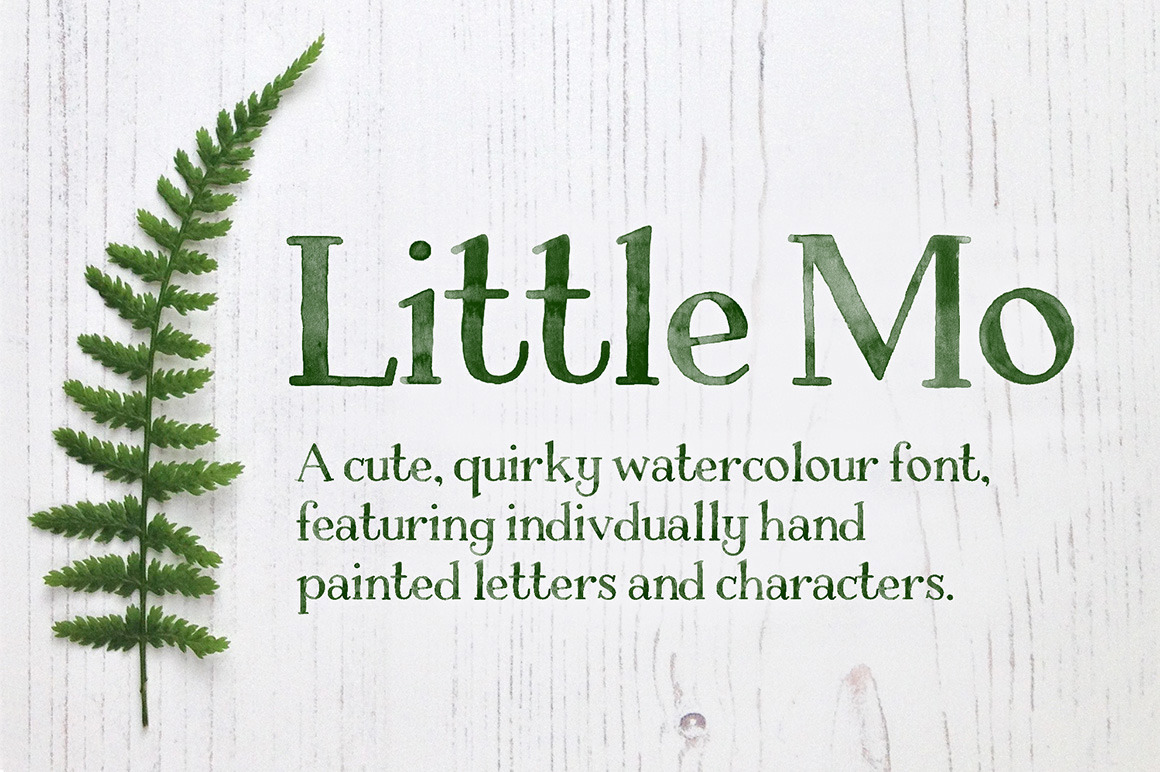
Little Mo Watercolour Display Font
A cute, quirky hand painted watercolour font, featuring individually hand painted characters with lovely watercolour textures.
Perfect for greetings cards, stationery, quotes, poems, wall art and homeware projects.